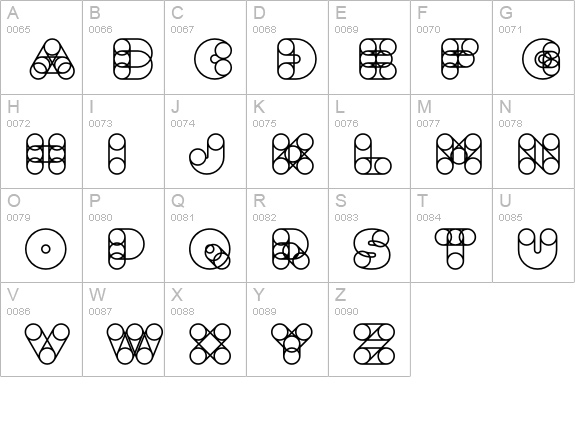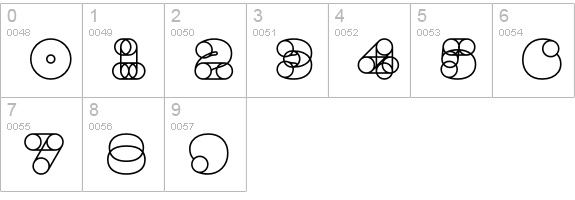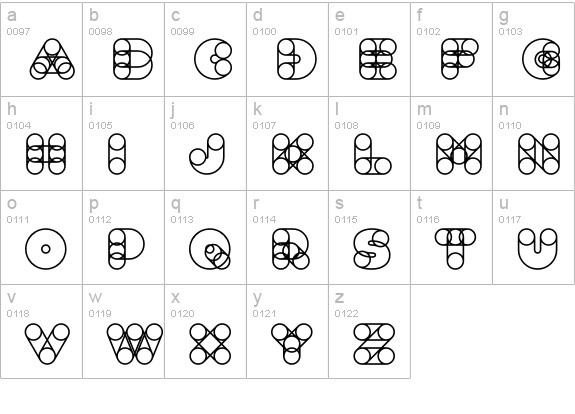
Fun City Level 6 Frame Font Details
Fun City Level 6 Frame font is a playful and whimsical typeface that is perfect for adding a touch of fun and creativity to your designs. This font features a unique frame design that gives your text a fun and eye-catching appearance. Whether you are working on a poster, invitation, or any other creative project, Fun City Level 6 Frame font is sure to add a touch of charm and personality. What's even better is that this font is available for free download at FontsMarket.com. You can easily access this font and start using it in your projects right away. Don't miss out on this opportunity to add a fun and playful element to your designs with Fun City Level 6 Frame font.